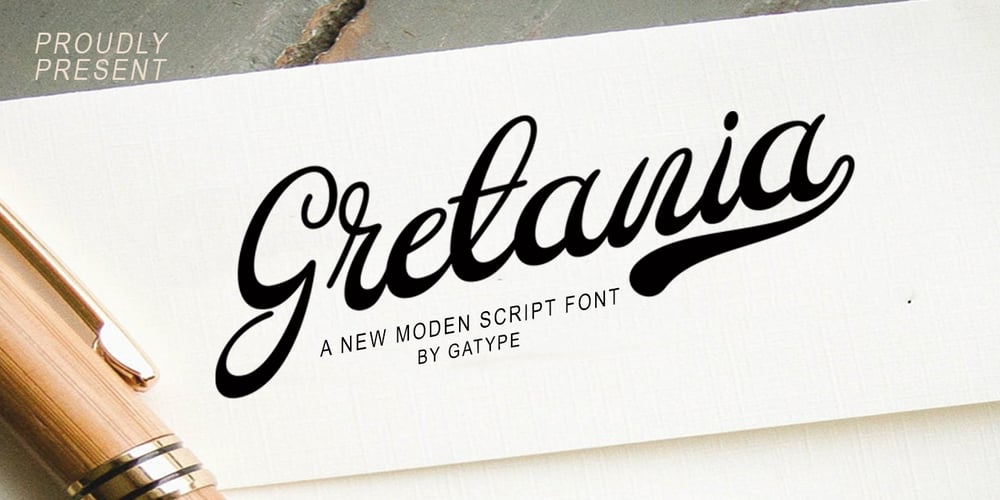
Gretania Font Family was designed by khaidir and published by Gatype. Gretania contains 1 styles and family package options. Gretania includes a full set of upper and lower case letters, multilingual symbols, numbers, punctuation, alternatives and ligatures.This font has a Modern Elegant Style, perfect for branding, logos, invitations, masterheads and more. Gretania features OpenType style alternatives, International binders and support for most Western Languages included. To enable the OpenType Stylistic alternative, you need a program that supports OpenType features such as Adobe Illustrator CS, Adobe Indesign & CorelDraw X6-X7, Microsoft Word 2010 or later.Thank you so much for viewing and Enjoying it.